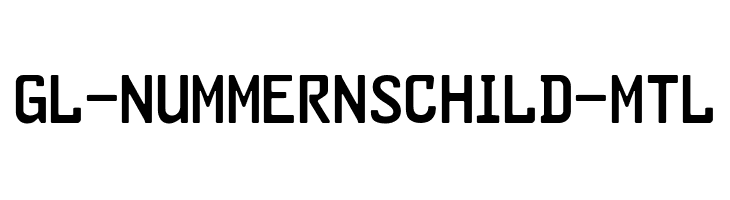
A bold, geometric font with a vintage industrial style.
A bold, geometric sans-serif font with a modern, monospaced appearance.
A bold, geometric font with a modern, industrial aesthetic.
A bold, geometric font with a modern, industrial style.